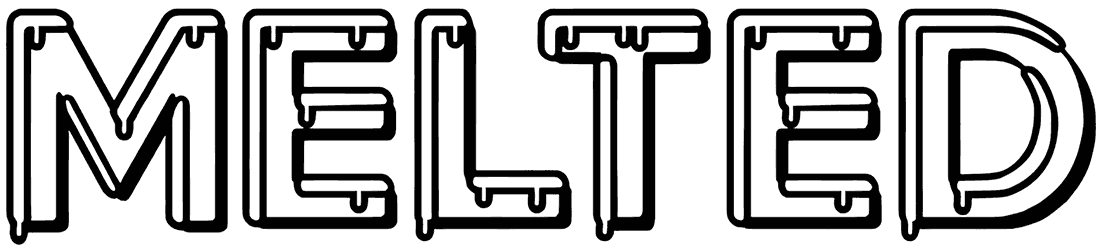
Melted Font
To insert the logotype on the packaging of ice cream or chocolate reminiscent of content, you need a proper fancy font with that icon. Just look at Melted, a dripping font that can evoke any playful and friendly vibe in your summer flyers, animation, storybook, and so on.
This melting font, with its hollow and melting design, does wonders in bringing out your typography despite the lack of numbers. Come on to try it out! To reach more, visit RB right away!